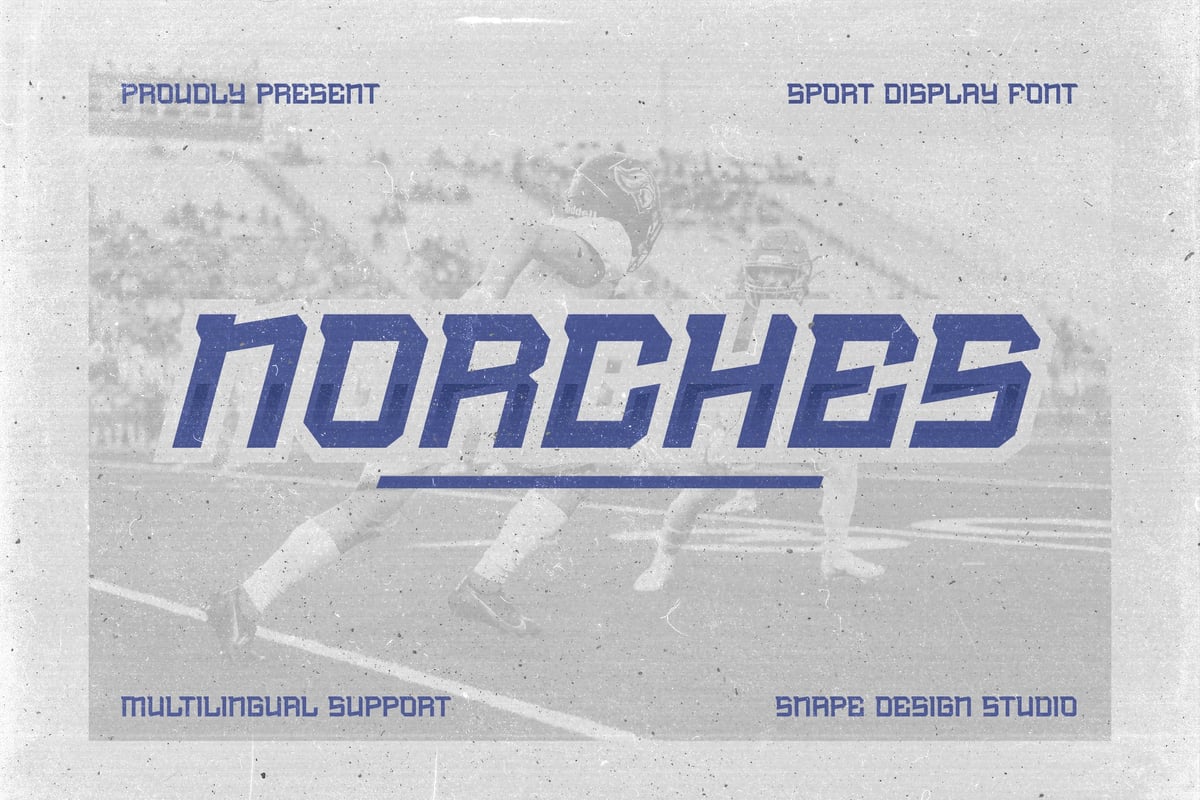
Norches - Sport Font
Command attention with Norches - a powerful sport font designed to make your athletic projects unstoppable. This bold typeface delivers the vibrant energy needed for sport-inspired designs that demand to be noticed. Perfect for creating impactful visuals that capture the competitive spirit of athletics. Ideal applications include: Sport design and team branding Jersey and league graphics Movie and documentary titles Film and game projects Logo and poster design Book covers and headlines Title gr...